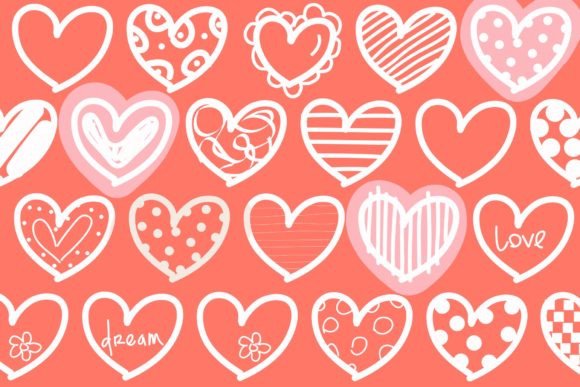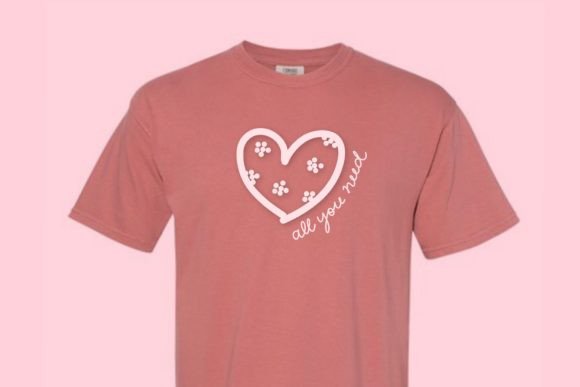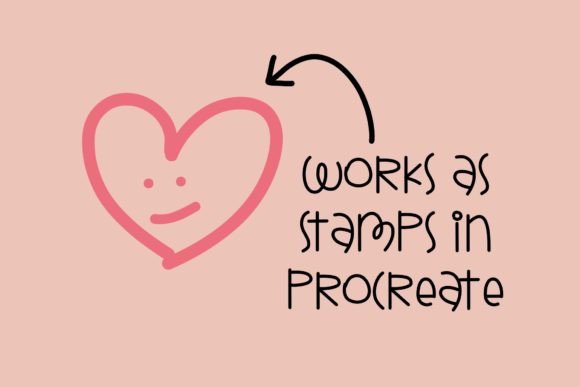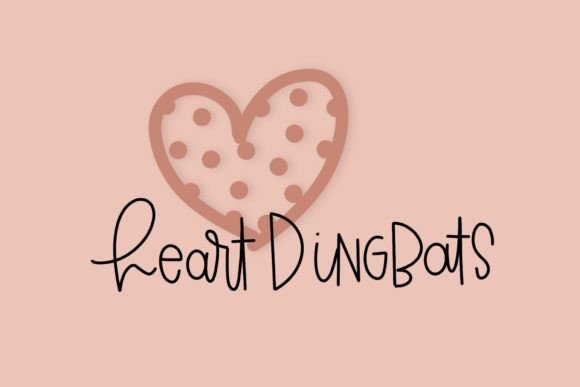
Introduction to Hearts Dingbats Font
Beautiful Heart shape dingbats.
Why Choose Hearts Dingbats Font?
Hearts Dingbats Font offers exceptional quality and versatility, making it a valuable addition to your design toolkit. Whether you’re creating for personal projects or commercial use, Hearts Dingbats Font delivers professional results.